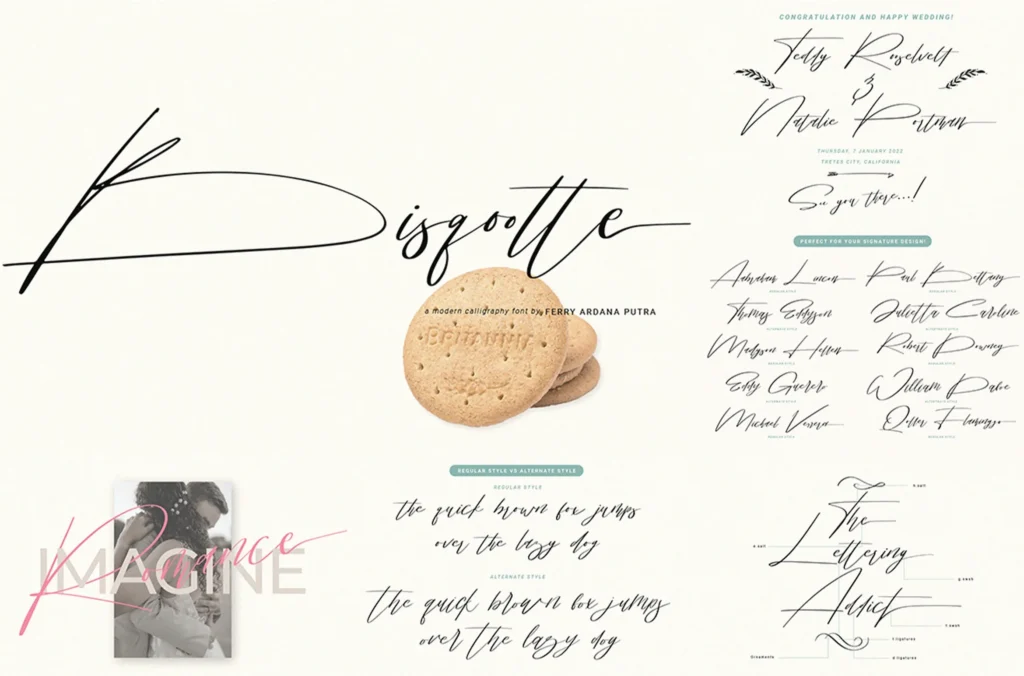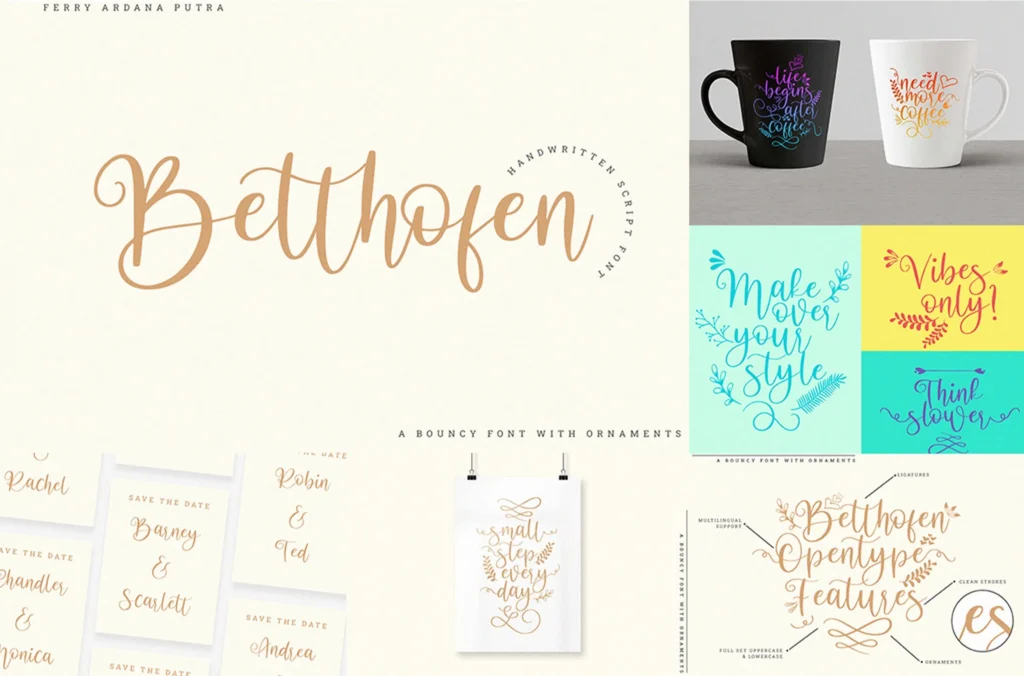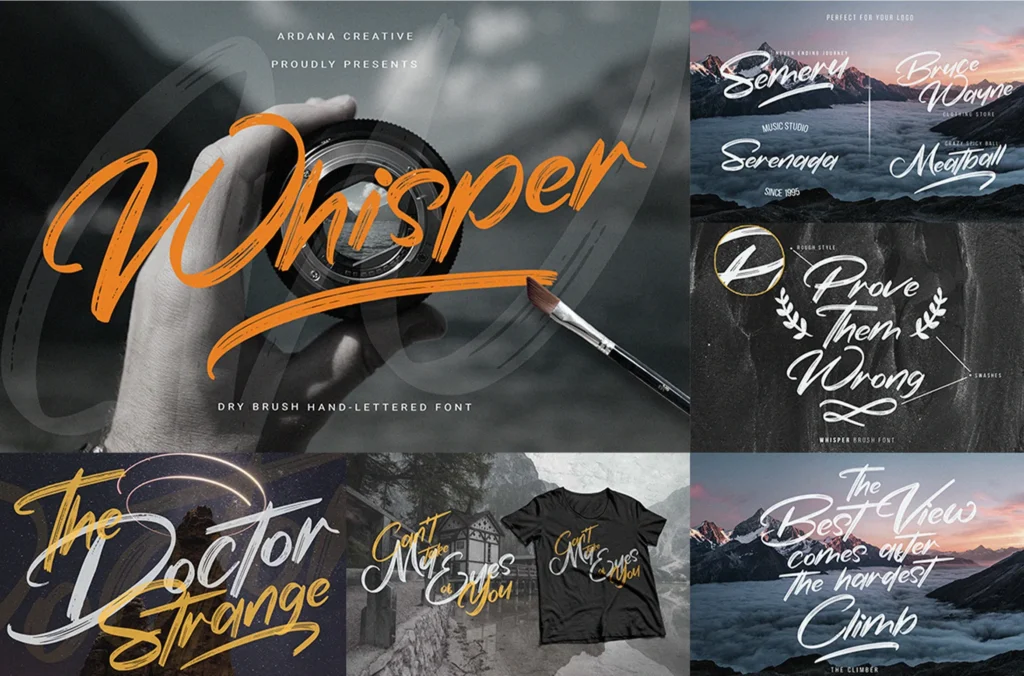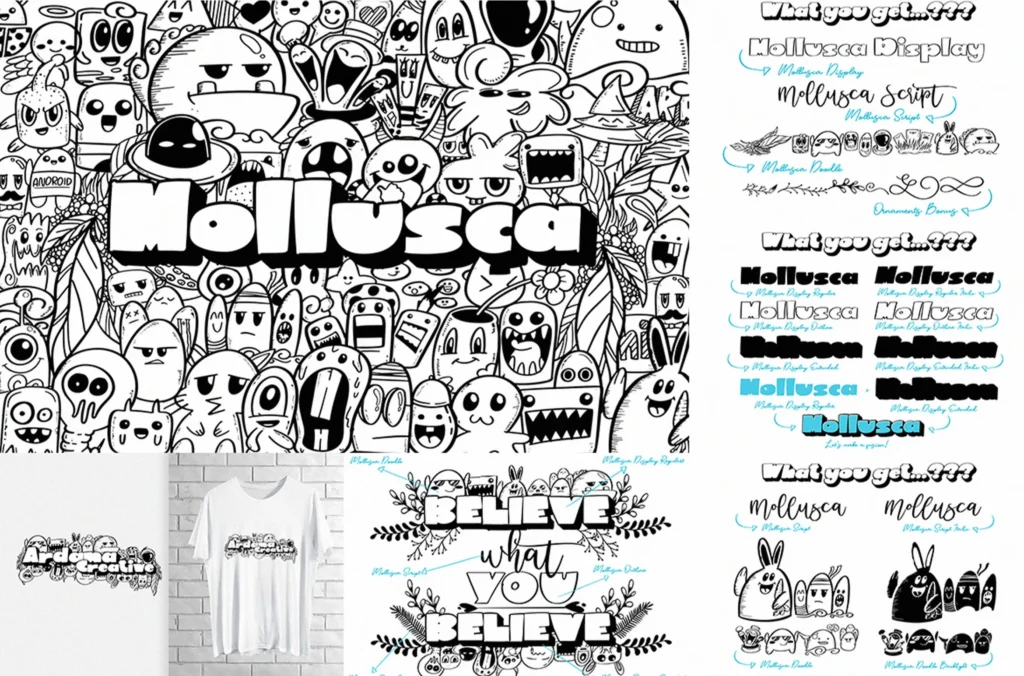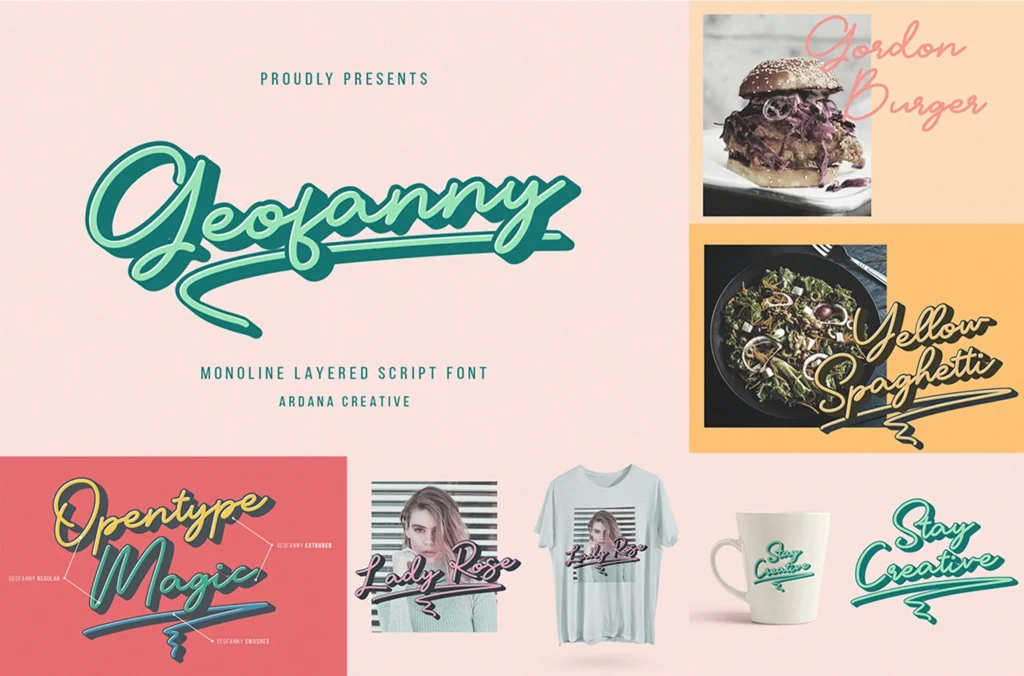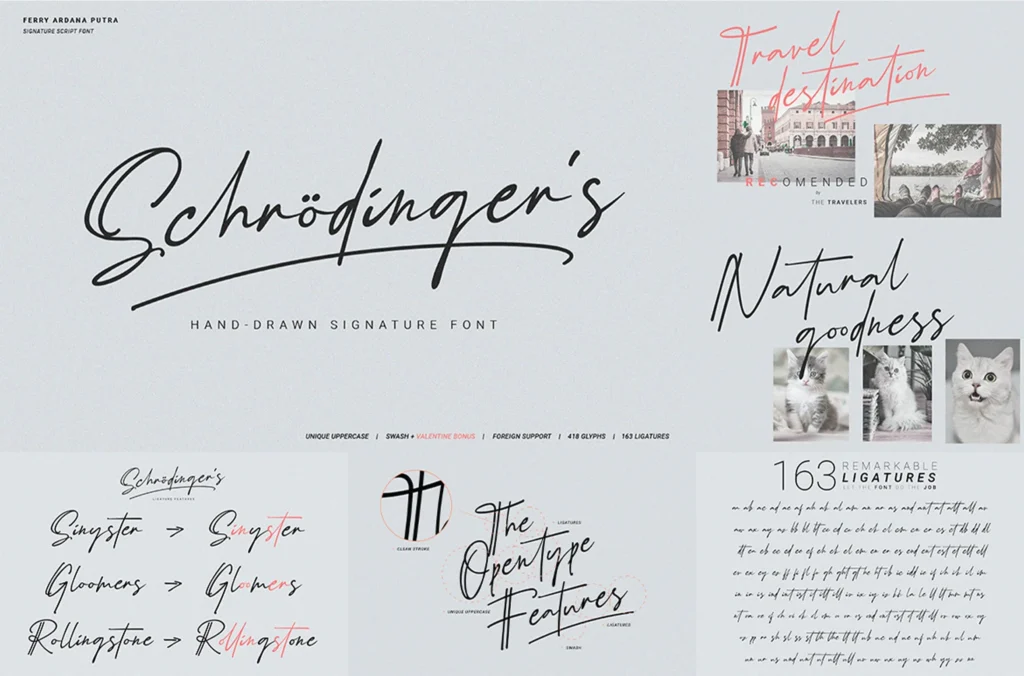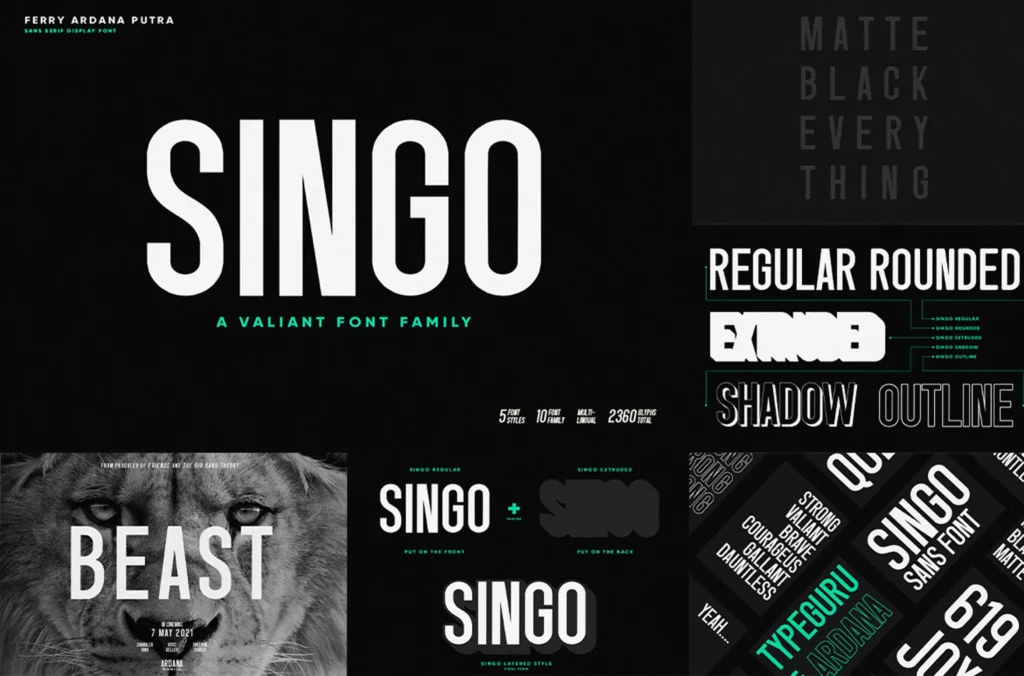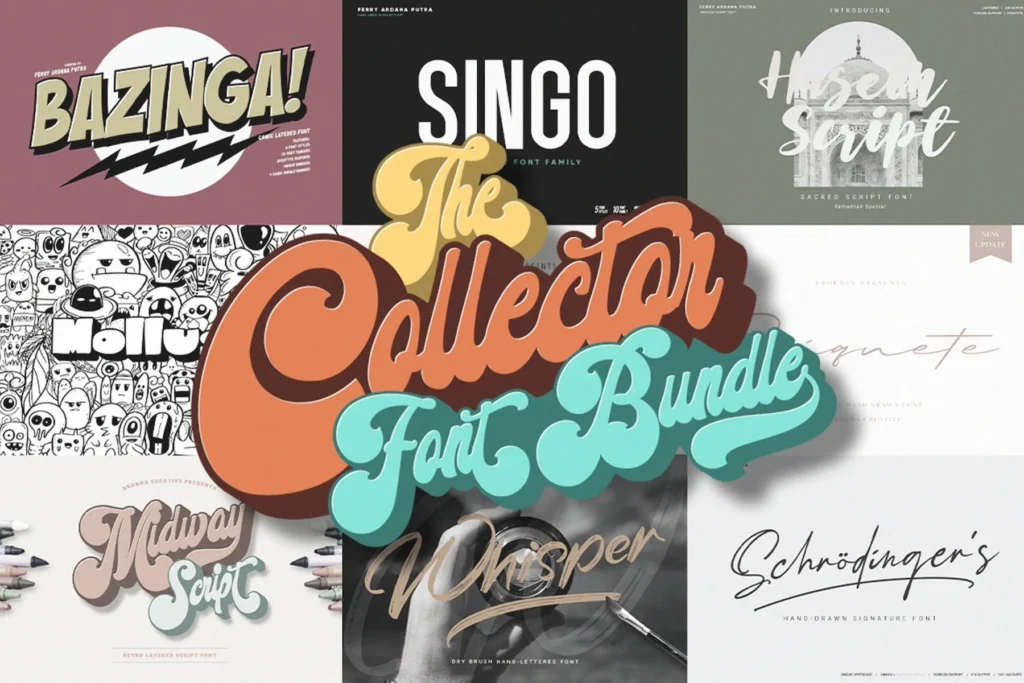
Midway | Retro Script Font
Mollusca Font Trio | Doodle Font
Geofanny | Monoline Layered Script Font
Husein Script | Handwritten Ramadan Font
Buzinga! | Comic Layered Font
Singo | Sans Display Font
Callifornia | Handwritten Signature Font
Schrödinger’s | Signature Font
Briquete | Natural Brush Font
Juliette | Signature Font
Whisper | Natural Dry Brush Font
Bisqootte | Modern Calligraphy Font
Betthofen | Handwriting Bouncy Script font